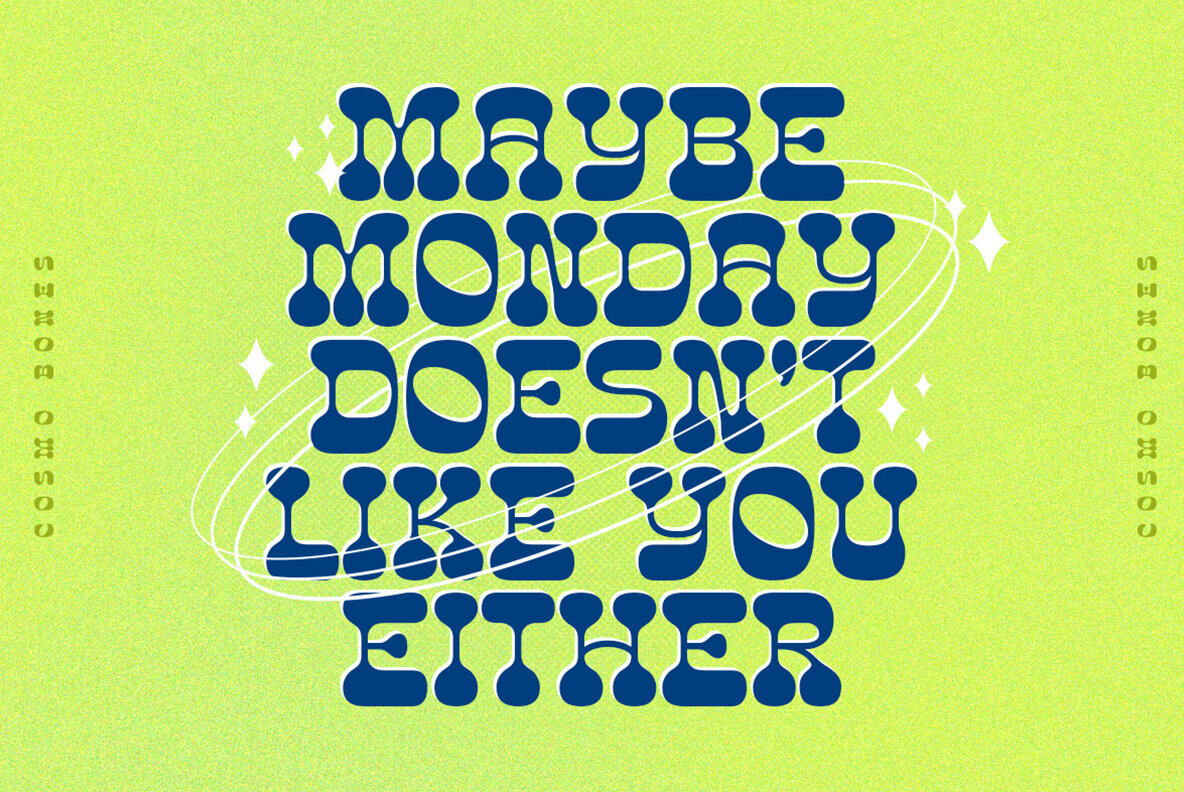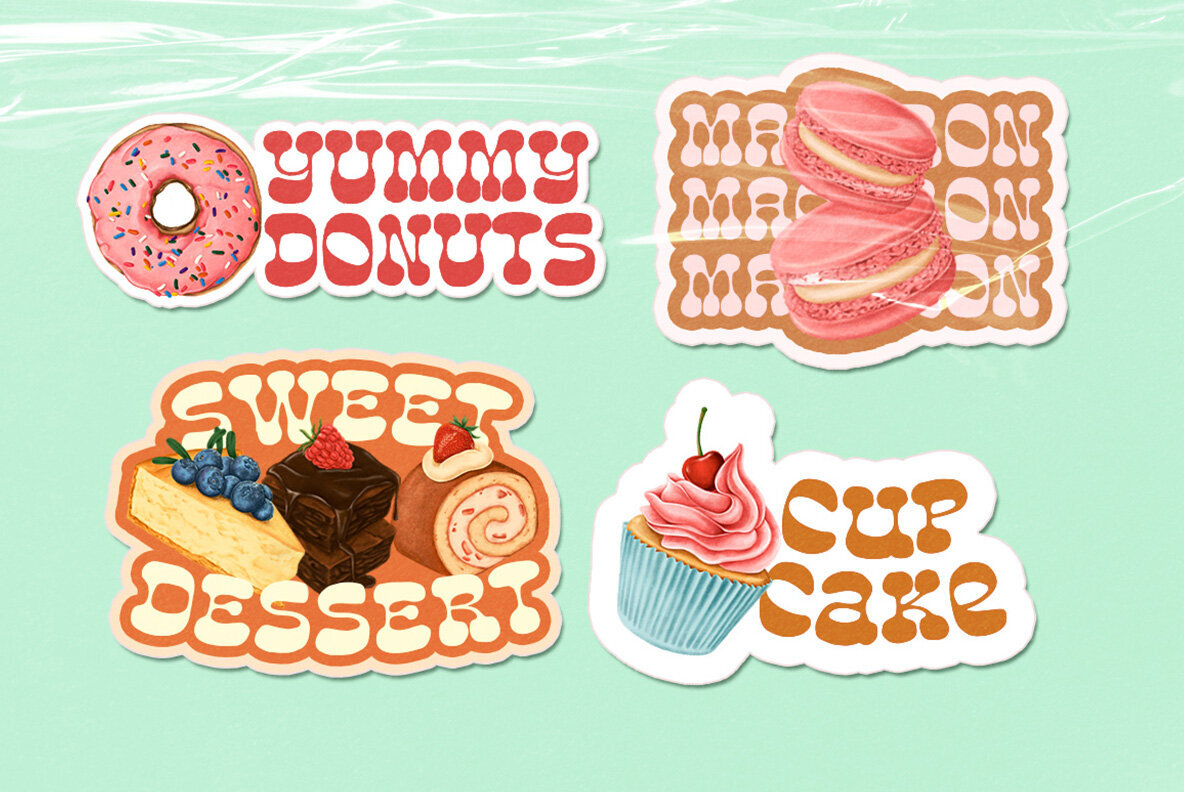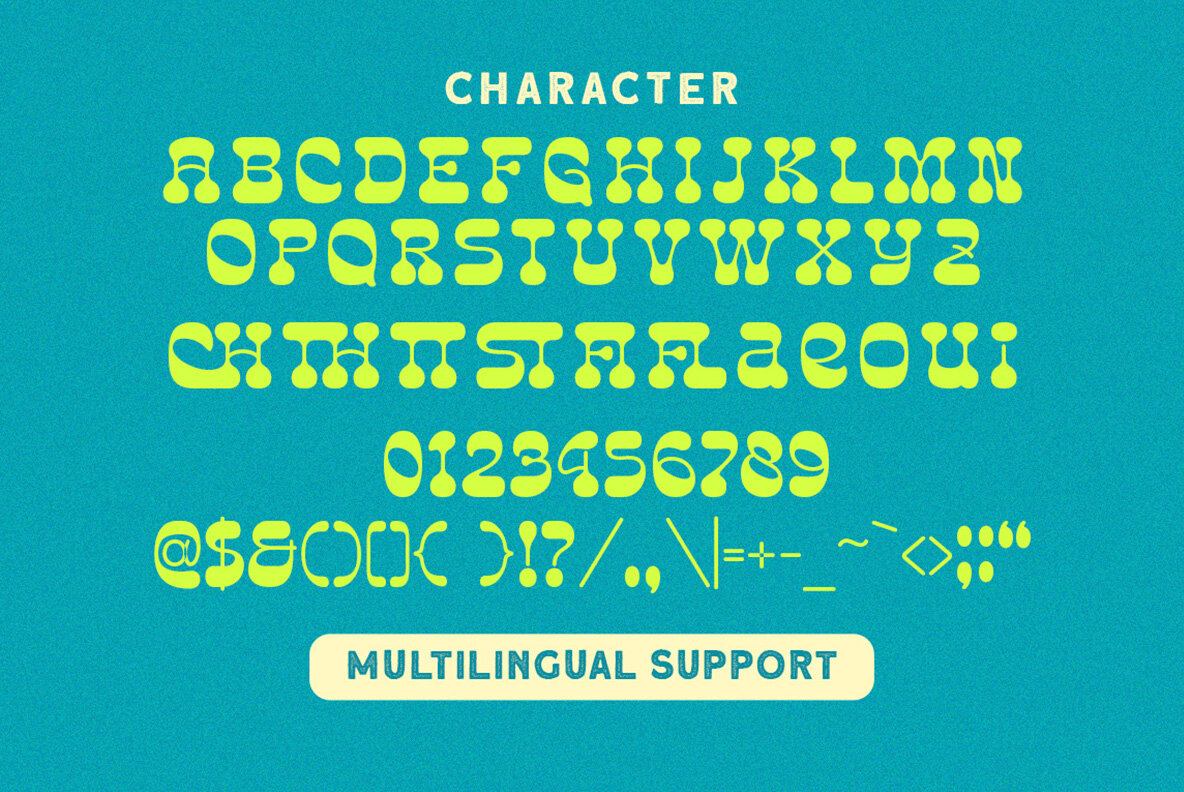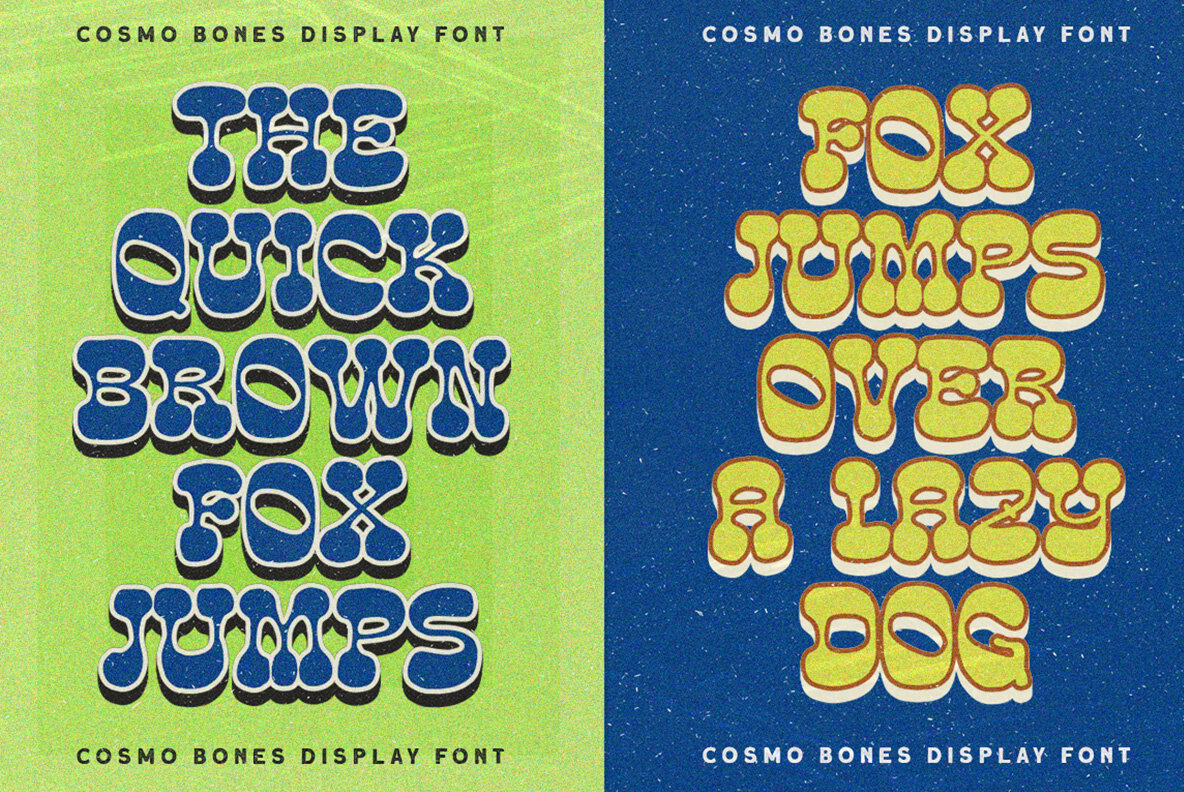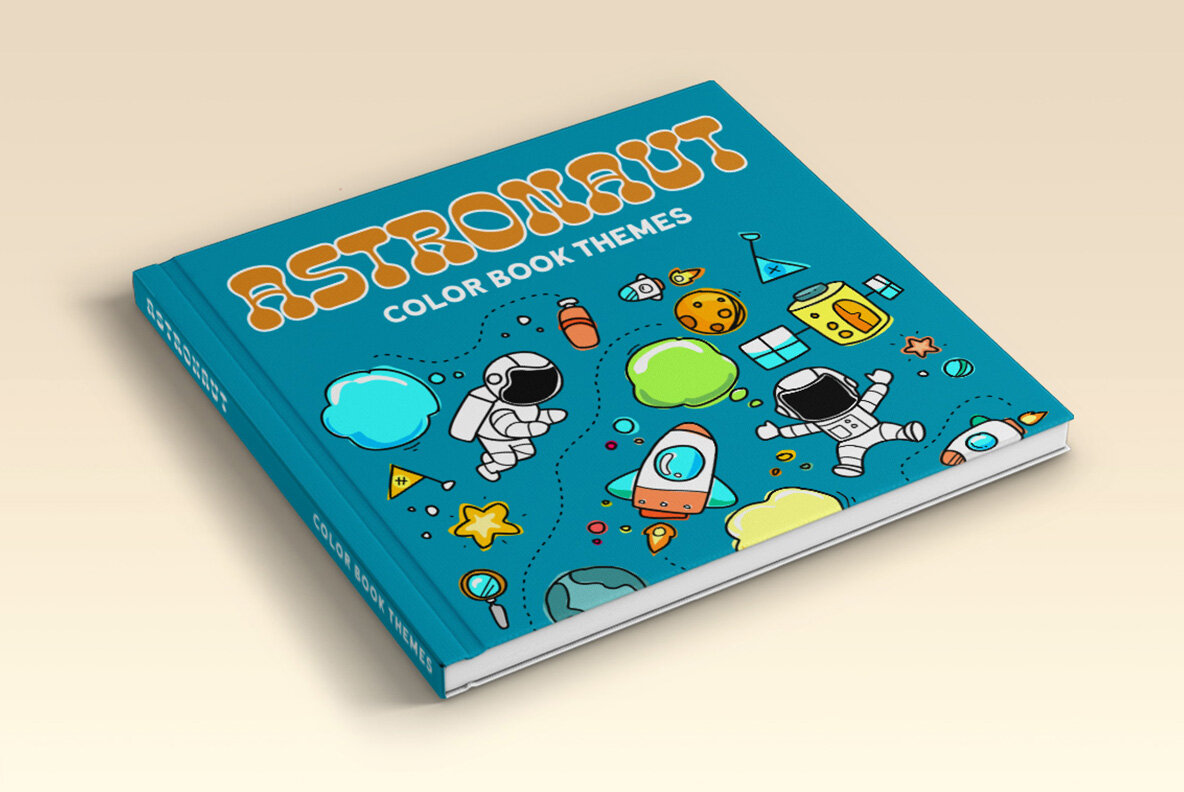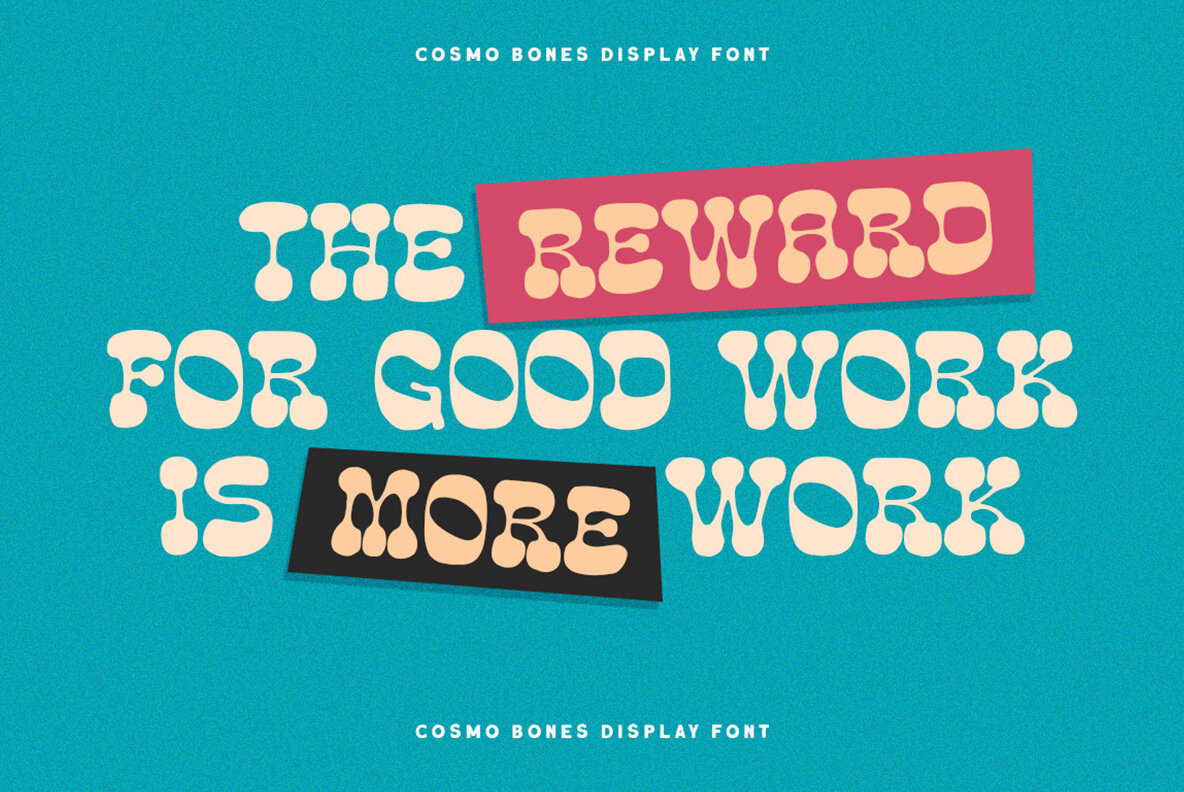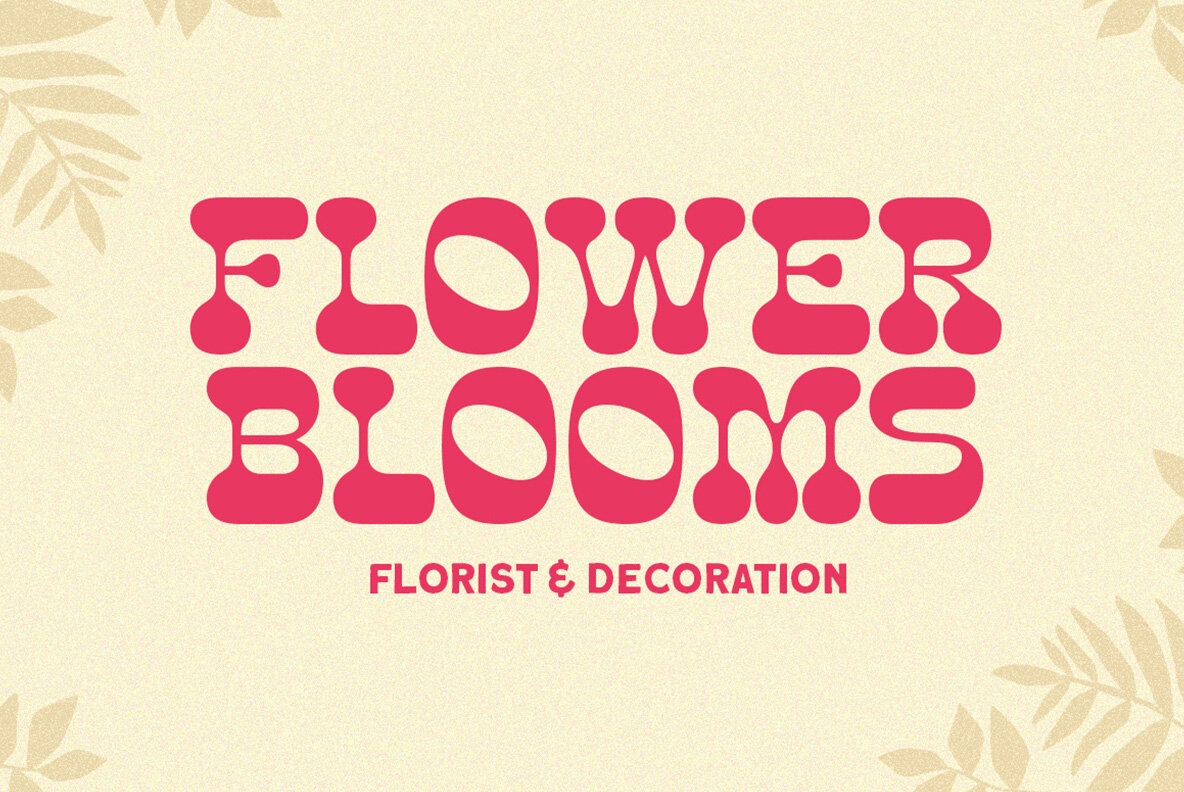
Cosmo Bones Font
Cosmo Bones charms with its lively, reverse display style, offering a whimsical touch perfect for children's storybooks or vibrant child-themed projects. Its unique flair also finds a place in formal presentations like invitations, labels, logos, and an array of creative domains such as magazines, greeting cards, product packaging, and even fashion or stationery design. For optimal use, we recommend designing with software that supports OpenType features and Glyphs panels, such as Adobe applications or CorelDRAW. Explore the full capabilities of Cosmo Bones by accessing OpenType features for creative precision.Cosmo Bones: Playful Reverse Display Font